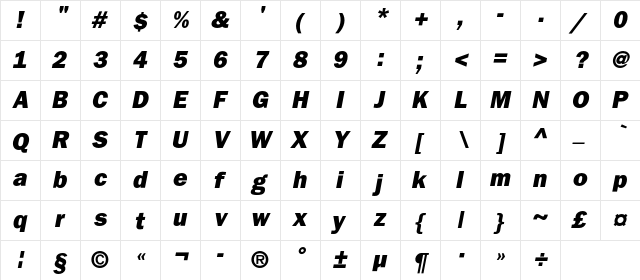
BloknotHeavyC Italic Font Preview
BloknotHeavyC Italic
Design Context for BloknotHeavyC Typeface
BloknotHeavyC is a composed and adaptable typeface that performs quietly and consistently across a wide range of design contexts. Its italic angle brings a sense of urgency and motion to the letterforms.
Pro Tip: Use BloknotHeavyC for emphasis, pull quotes, and subheadings where its slanted energy can add rhythm to the layout.